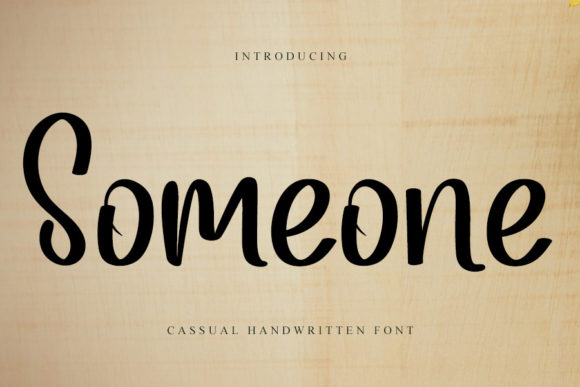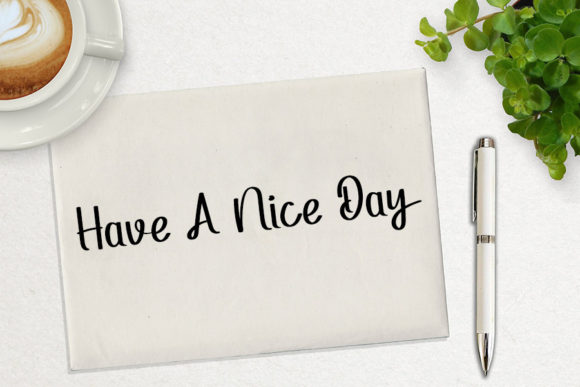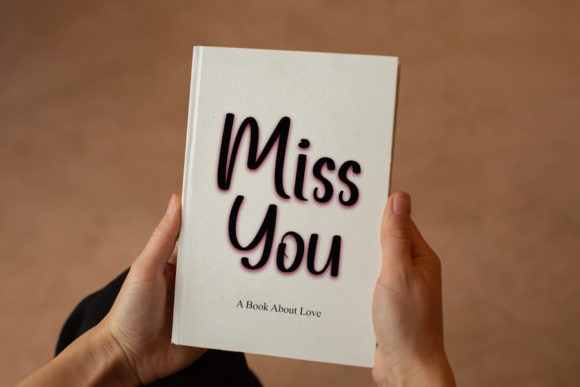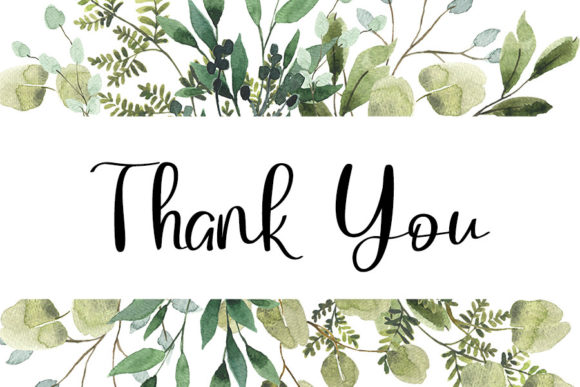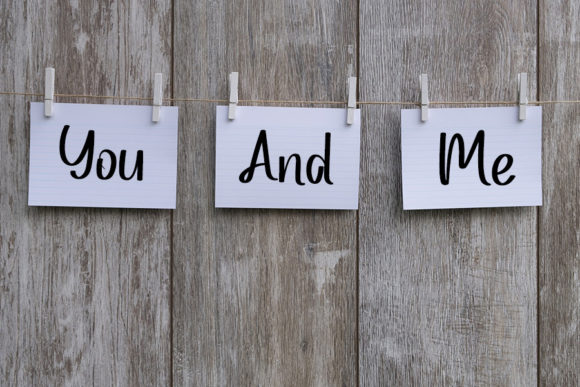
About Someone Font
SomeoneĀ is a lovely handwritten font, masterfully designed to become a true favorite. It maintains its classy calligraphic influences while feeling contemporary and fresh. Fall in love with it and bring your projects to the highest levels!